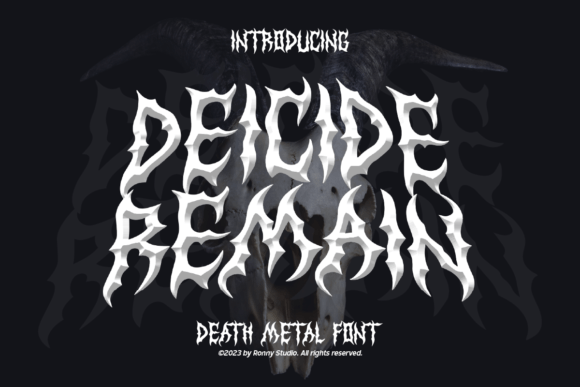
Introducing Deicide Remain Font, the ultimate font choice for those seeking a black letter font with an underground edge. Created by the talented Ronny Studio, this font is sure to captivate and inspire users looking to add a cooler or fiercer look to their band logos.
With its unique and striking design, Deicide Remain Font is perfect for the extreme music sector. Whether you're a fan of Death- or Black metal classics, this font will help your logo stand out from the crowd. It's time to unleash your creativity and make a bold statement with your band's visual identity.
This font offers more than just a basic character set. It features a collection of symbols and signs that are frequently used in the extreme music scene. From pentagram drops to roots and wings, these elements add a touch of darkness and mystique to your designs. Transform your band's image and evoke powerful emotions in your fans with Deicide Remain Font.
Not only does Deicide Remain Font bring a visually appealing aesthetic, but it also provides a range of practical benefits. Its keyword-rich nature ensures that your website and band logo will rank higher in search engine results, attracting more potential customers and fans. Stand out in the competitive online landscape and increase your visibility with this font.
But it doesn't stop there. Deicide Remain Font goes beyond being just a font. It's a gateway to a world of creativity and artistic expression. With its underground touch, this font sparks imagination and allows you to explore new possibilities in your designs. Let your music and brand identity be a reflection of your passion and individuality.
In conclusion, Deicide Remain Font is the perfect choice for those seeking a black letter font with an underground touch. Its unique design, extensive symbol collection, and keyword-rich nature make it a must-have for any band or musician looking to make a statement. Step into the world of creativity and download Deicide Remain Font today. Unleash your artistic vision and take your brand to new heights.